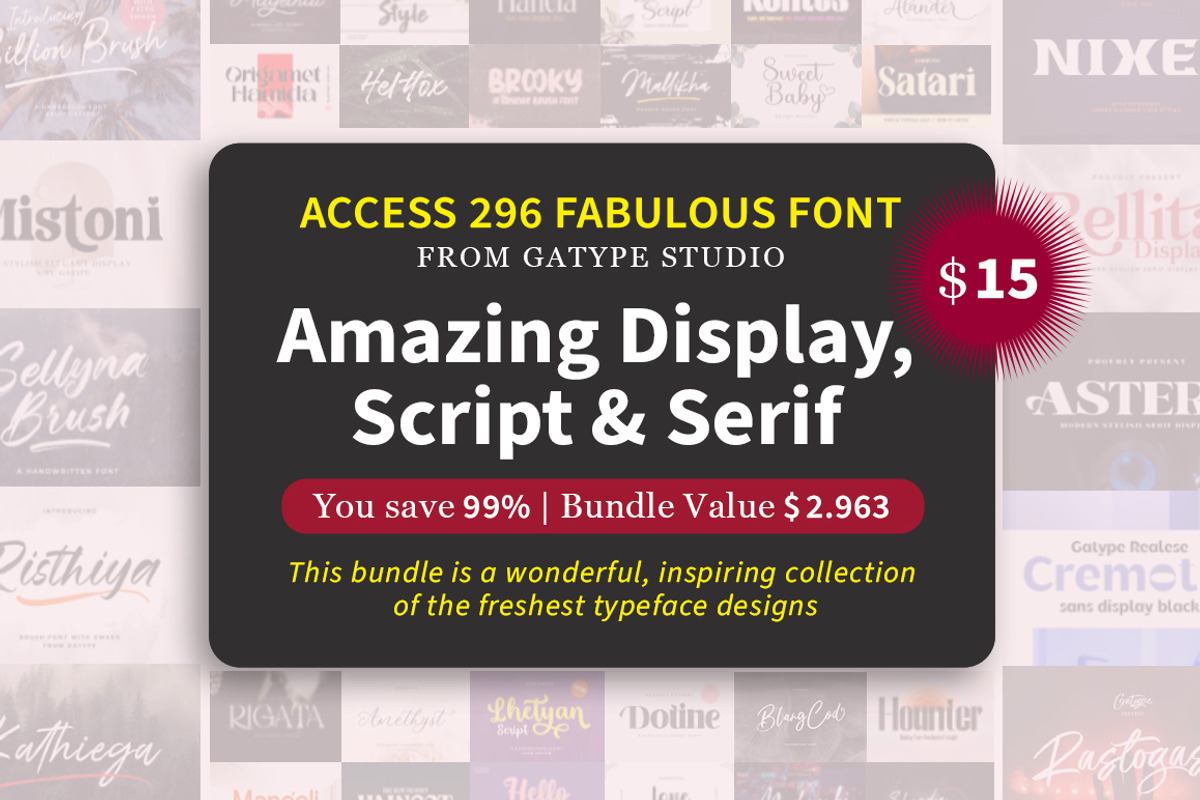
Fabulous Font Bundles Free Download is a premium collection of diverse, high-quality fonts designed to elevate any creative project. From elegant scripts and modern serifs to playful displays and bold sans-serifs, this bundle offers something for every design style—making it perfect for branding, logos, invitations, packaging, social media content, and more.
Each font in the bundle has its own unique personality, allowing you to mix and match for stunning results. Whether you're designing for weddings, fashion, business, or lifestyle, this collection gives you the tools to create standout typography with ease. Test them for free and explore their versatility, but don’t forget—a commercial license is required for any monetized or client work.
Transform your design game with Fabulous Font Bundles Free Download and unlock a world of stylish, professional-quality typefaces that will inspire your next masterpiece. A must-have for every designer’s collection.